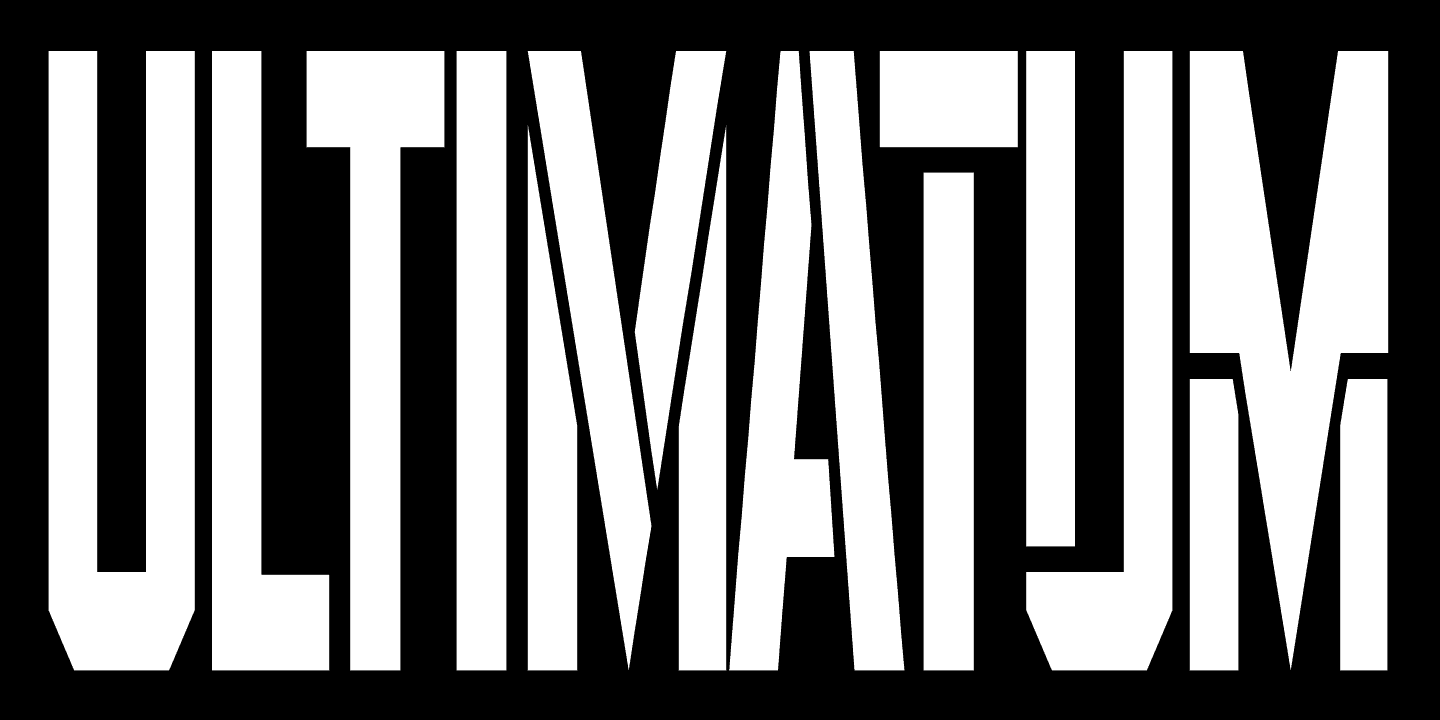
CC Ultimatum Variable Font Free Download is a bold and dynamic sans-serif typeface designed to make a strong impact with its sharp edges and modern, geometric structure. This font is perfect for high-visibility design projects such as branding, headlines, logos, posters, and digital content where you need to grab attention and convey power.
The CC Ultimatum Variable Font offers flexibility through its variable weights, allowing you to adjust the font’s thickness and style to suit different design needs. Whether you need a strong, bold appearance for logos or a more refined weight for body text, this font adapts to your project with ease.